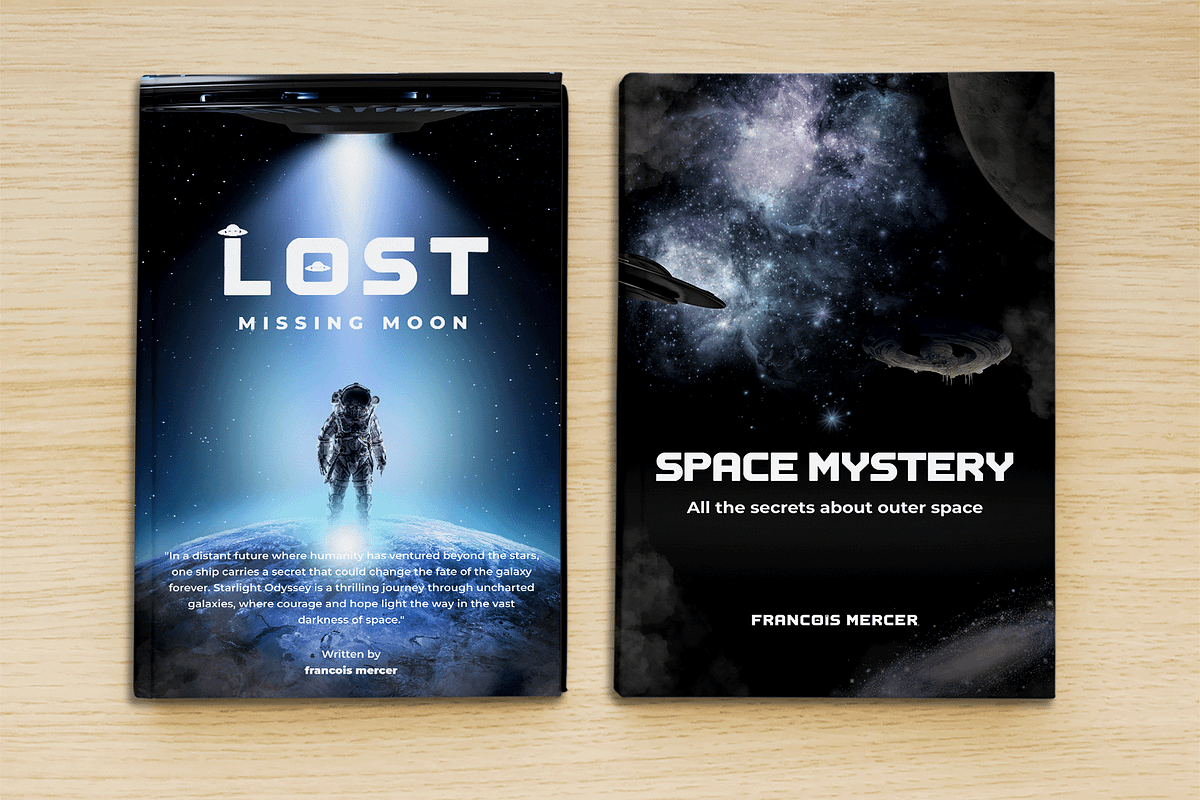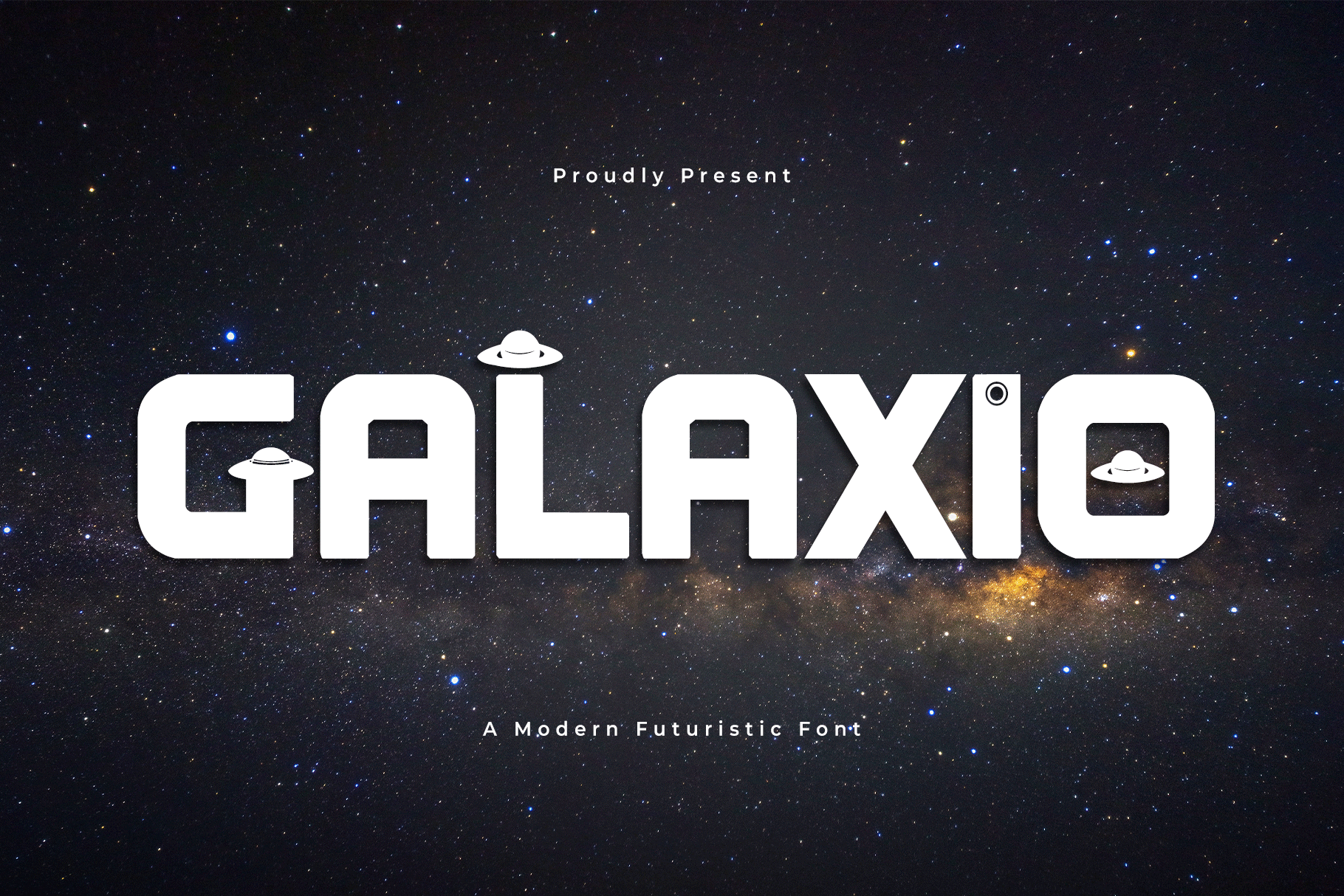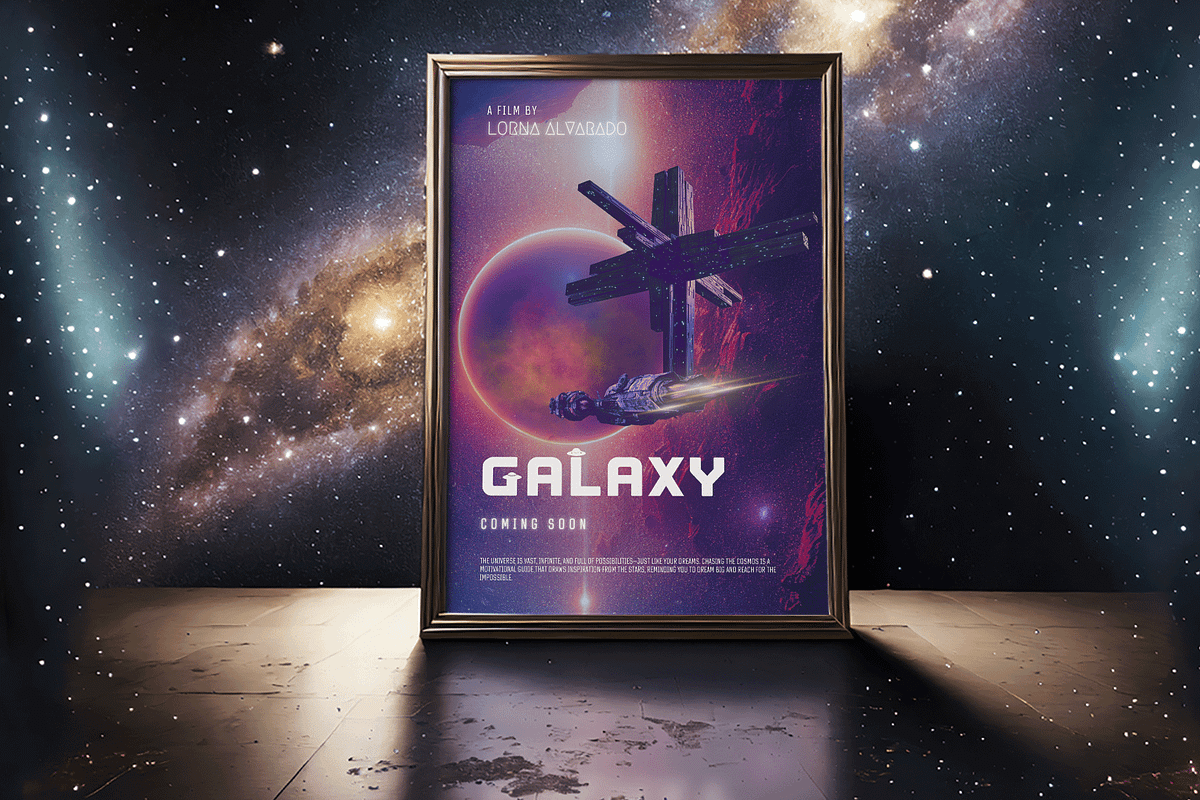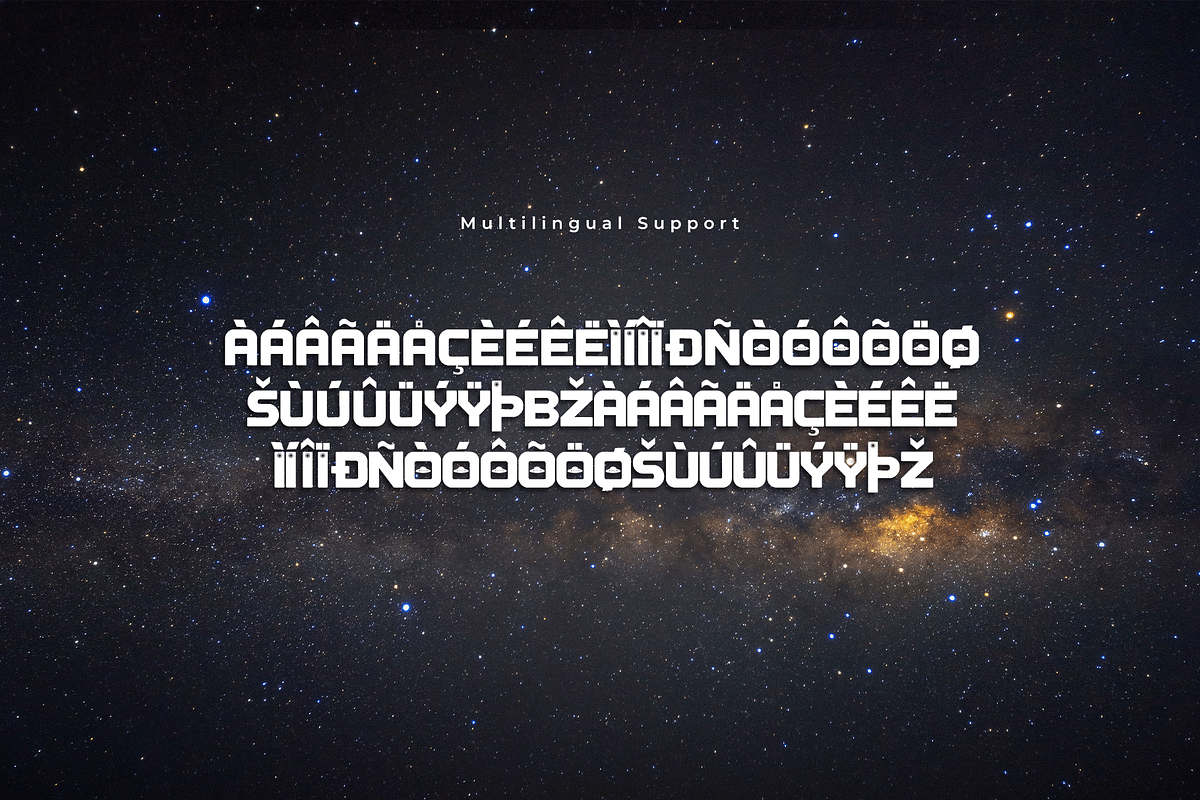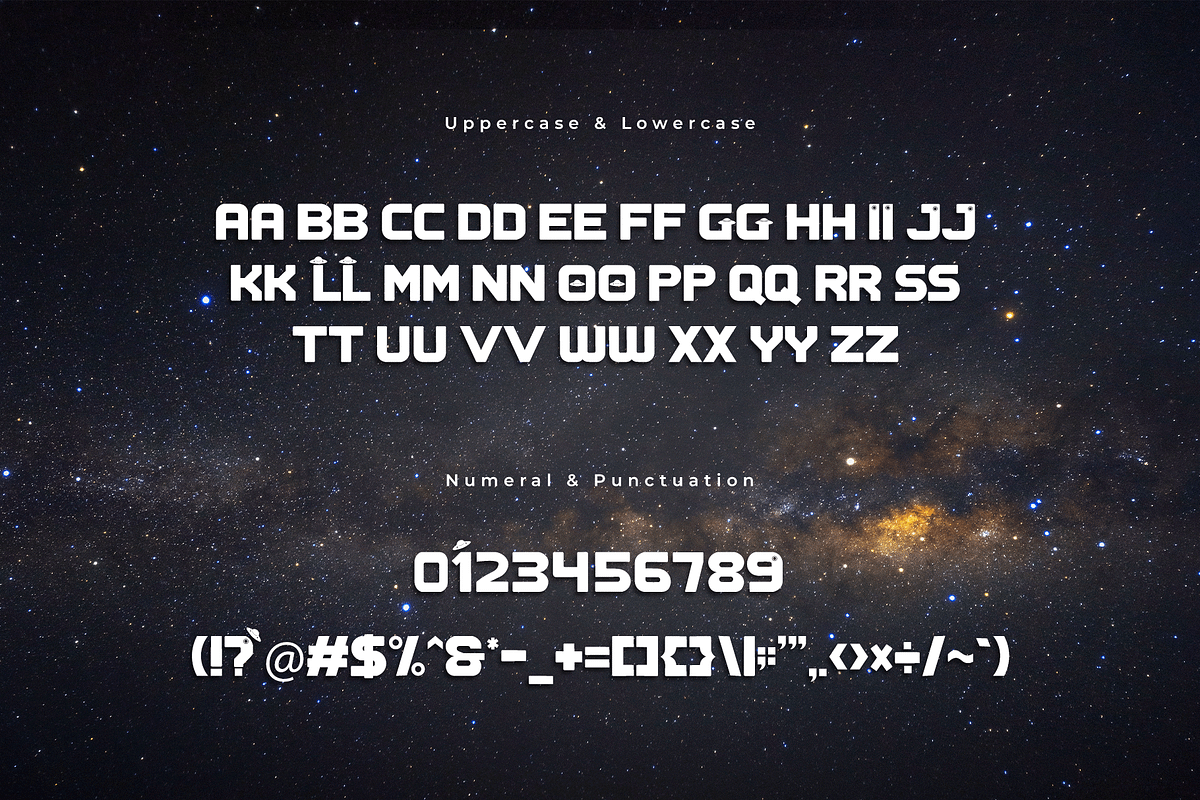
Galaxio - A Modern Futuristic Font
Step into the future with Galaxio, a sleek and modern futuristic font inspired by the cosmos and cutting-edge technology. Its bold geometric design and clean lines make it perfect for tech branding, sci-fi posters, video game titles, and innovative projects.
Featuring a unique character set with multilingual support, Galaxio embodies a vision of tomorrow. Its sharp edges and dynamic shapes ensure your designs stand out, whether for digital interfaces, futuristic logos, or cyber-themed advertisements. Unleash creativity that defies limits with Galaxio.